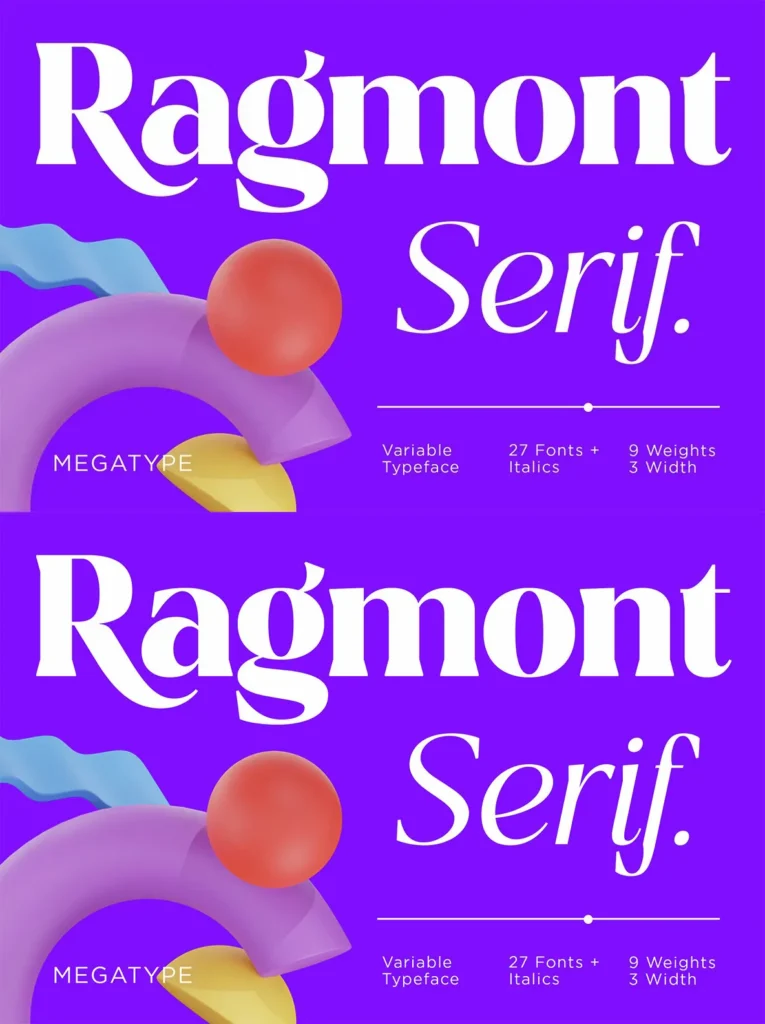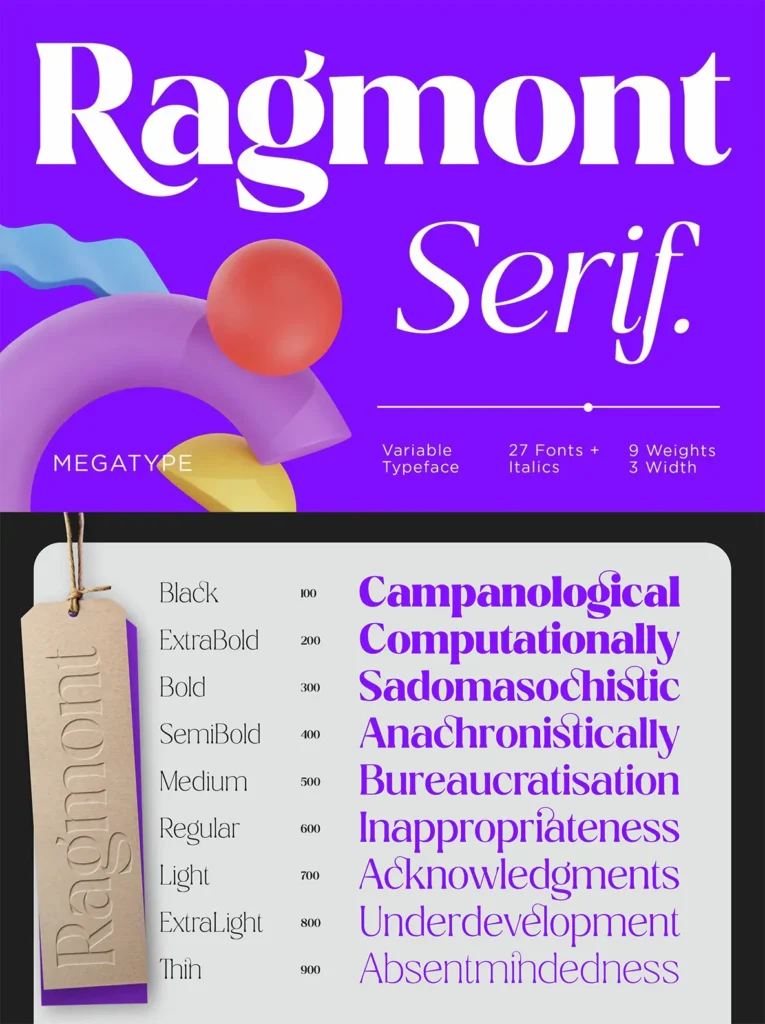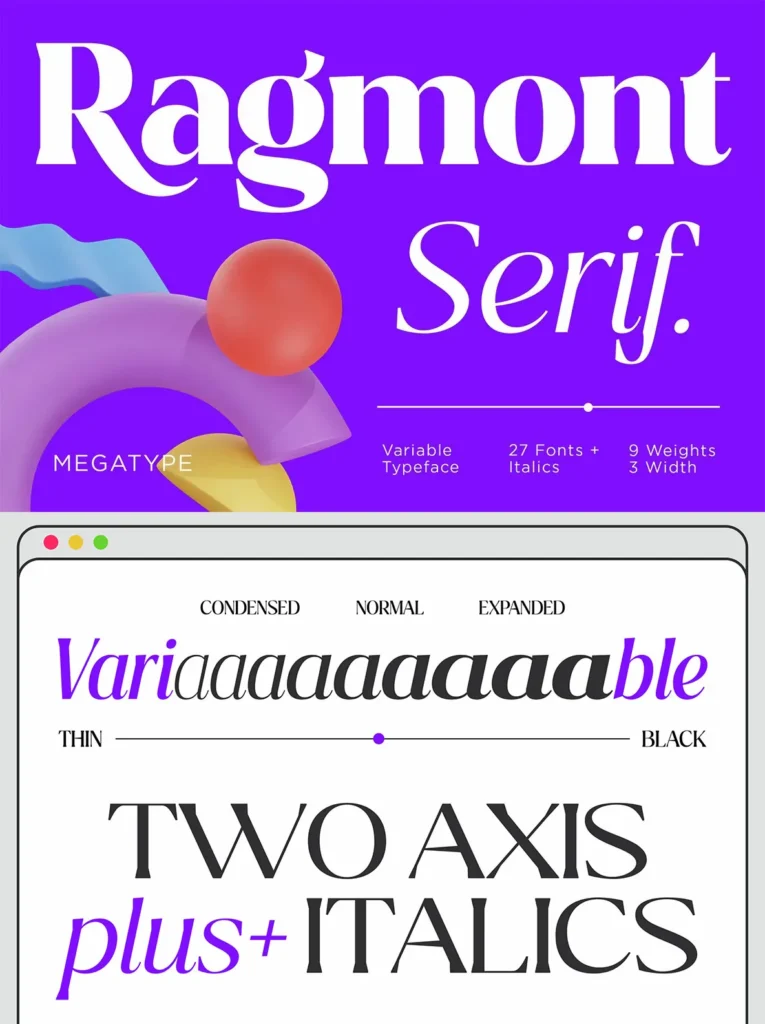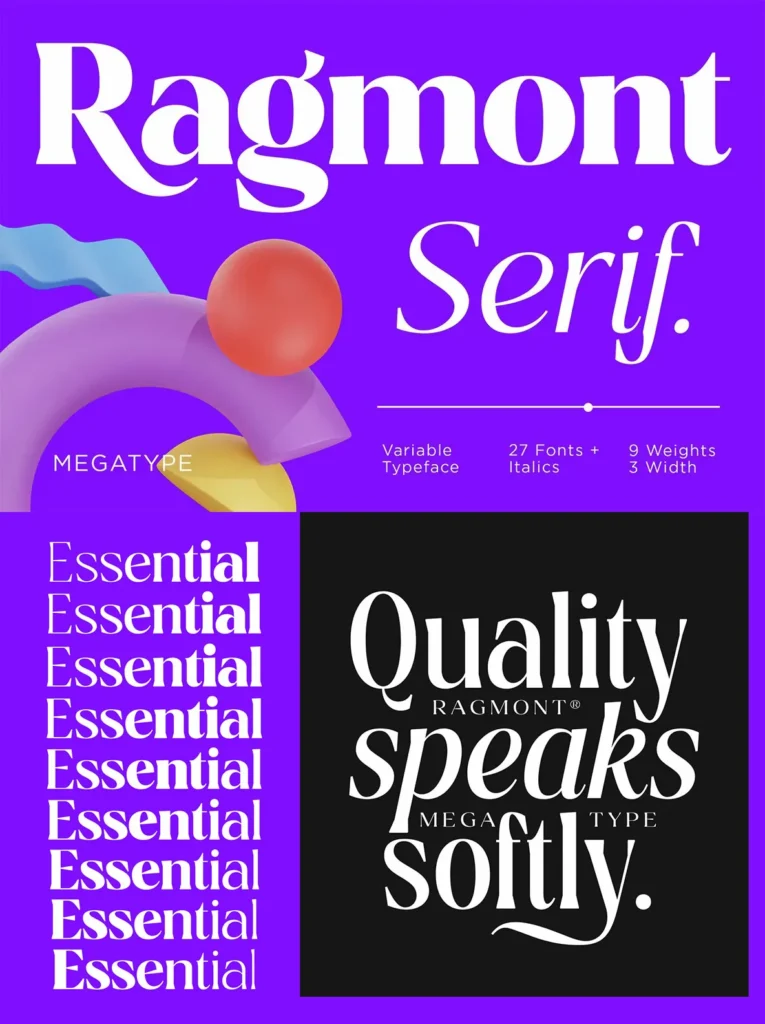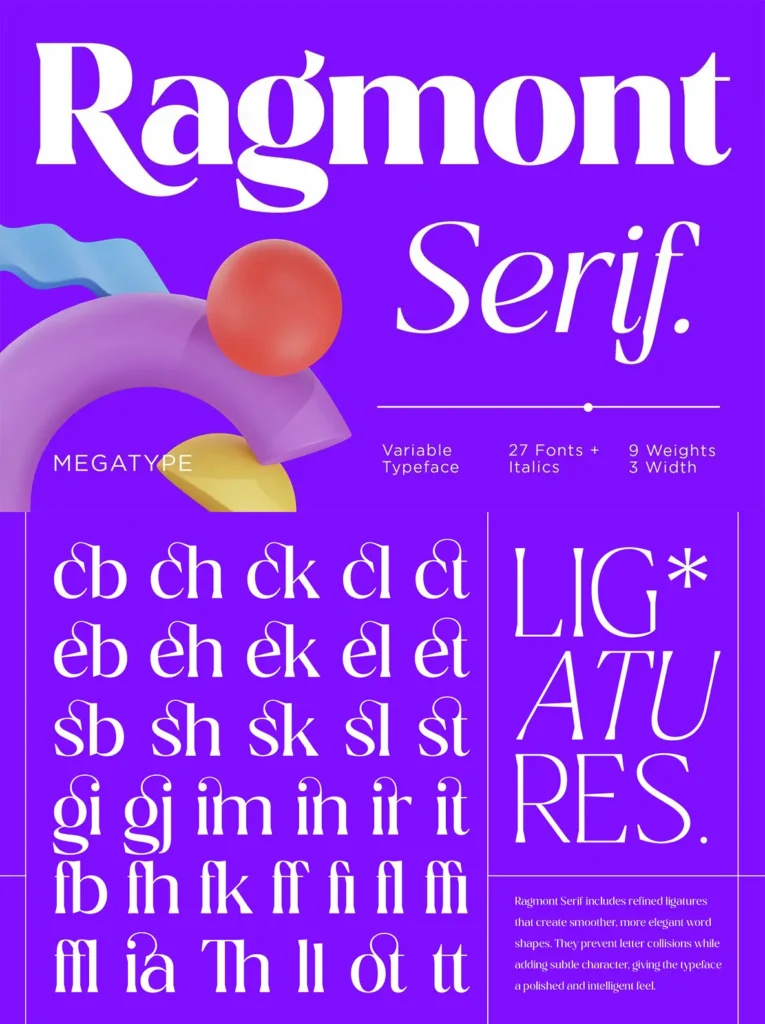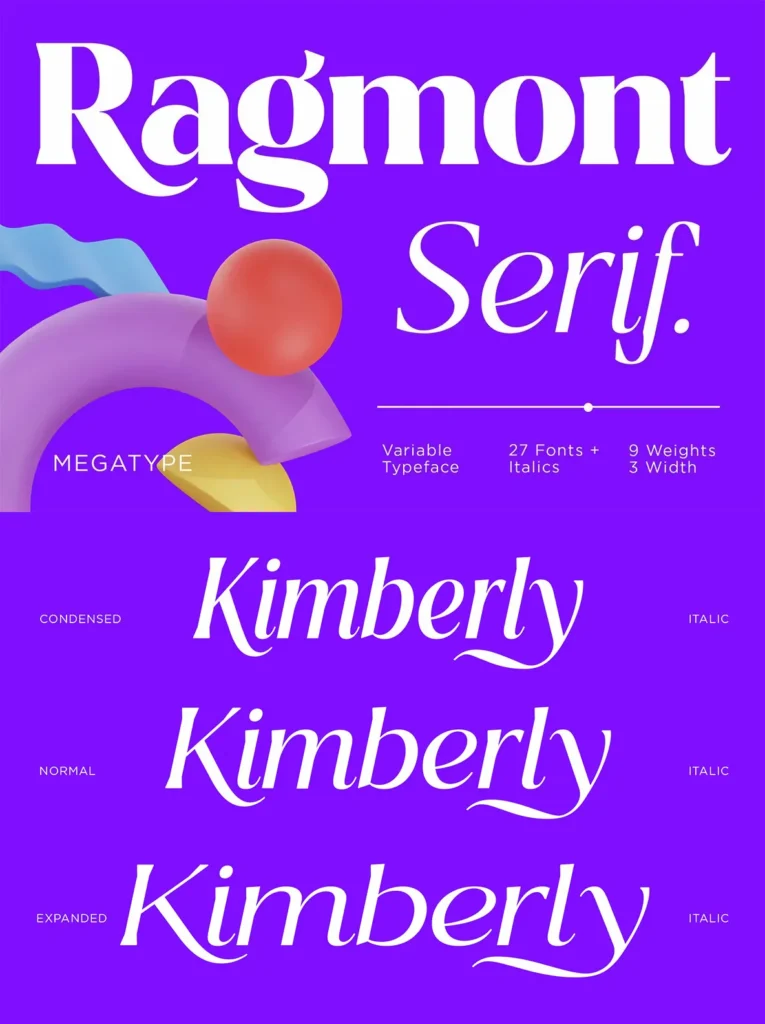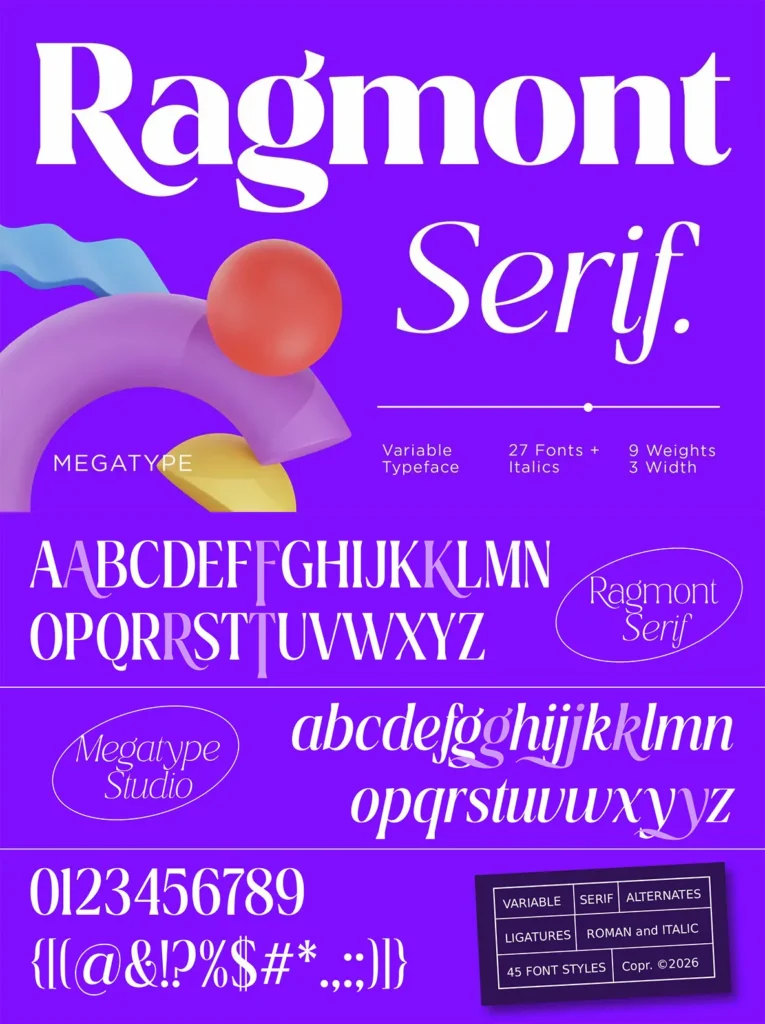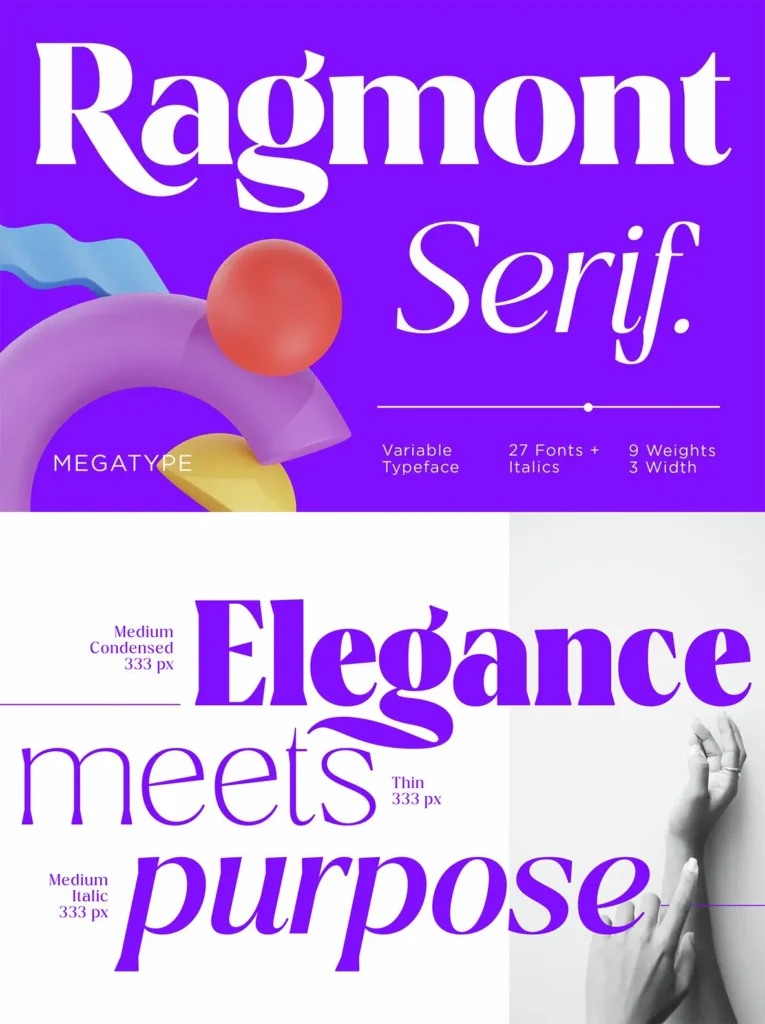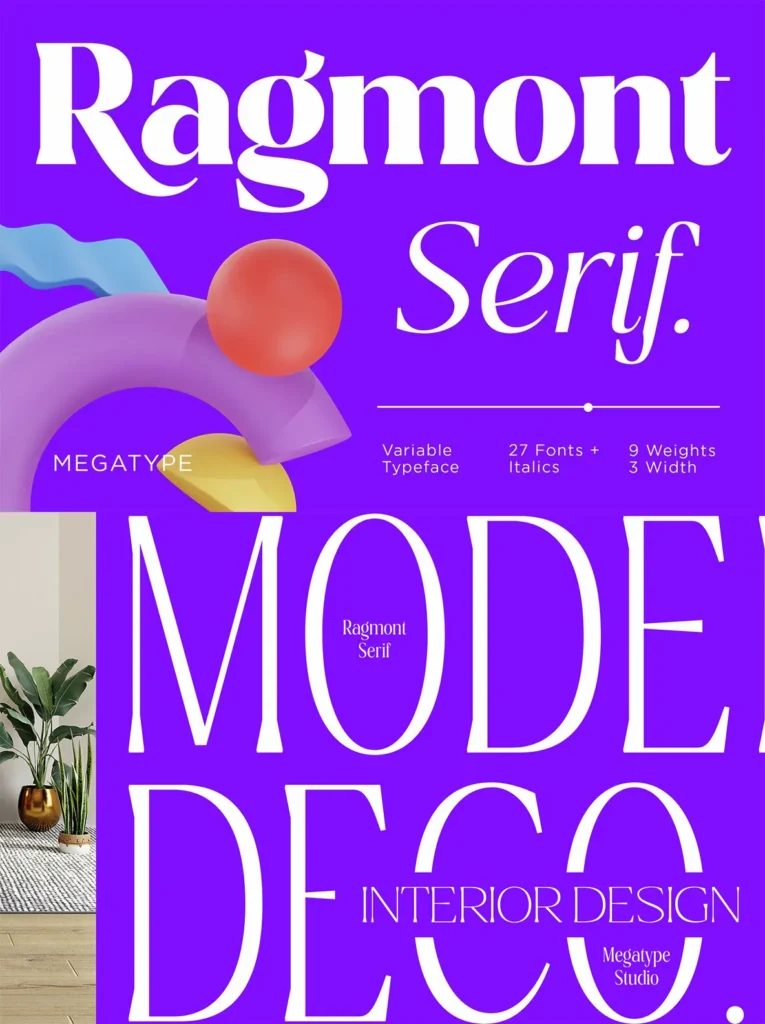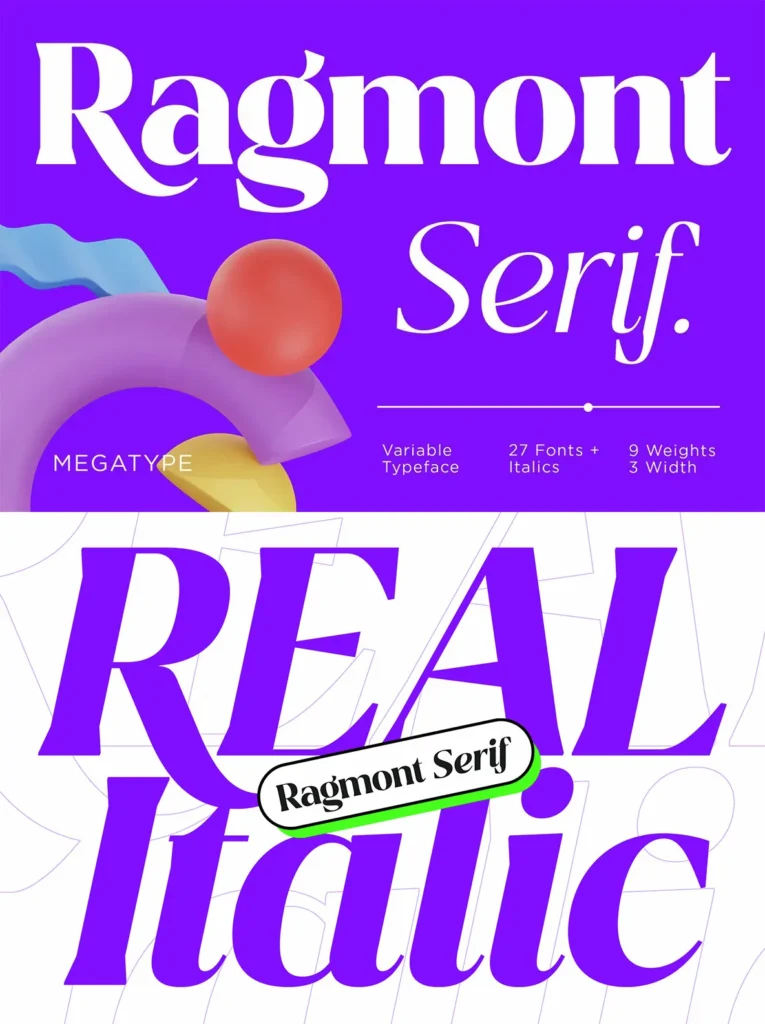
Ragmont Serif: A Modern-Classic Typeface with Refined Elegance
Ragmont Serif merges the grace of traditional letterforms with contemporary design principles. It features smooth thick–thin contrast, carefully refined serif curves, and balanced proportions that evoke a sense of luxury while maintaining clarity. This typeface offers nine distinct weights, from Thin to Black, each accompanied by six width and style variations—including Italic, Condensed, and Expanded—totaling 54 harmonious styles.
Designed to convey an editorial and premium tone, Ragmont balances expressive details that attract focus without compromising legibility. It performs equally well in large display sizes and medium text settings, delivering both impact and readability.
The versatility of Ragmont Serif allows it to stand out in dramatic headlines as well as polished, professional layouts. Its sophisticated and subtly artistic character suits projects that require a strong identity paired with refined aesthetics.
Features:
Nine weights from Thin to Black, with six width and style variations each
Elegant thick–thin contrast creating visual interest
Refined serif curves that balance luxury and cleanliness
High legibility for both display and text use
Suitable for branding, editorial design, packaging, and digital interfaces
This typeface is ideally applied in branding and visual identity, especially for luxury and fashion brands; editorial publishing such as magazines and feature articles; promotional graphic materials like posters and album covers; premium websites and landing pages; and product packaging for cosmetics, perfumes, and lifestyle goods.